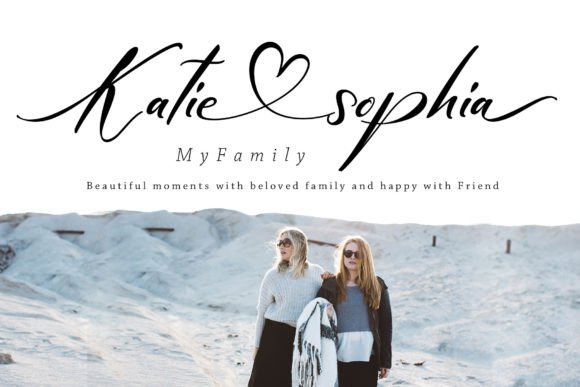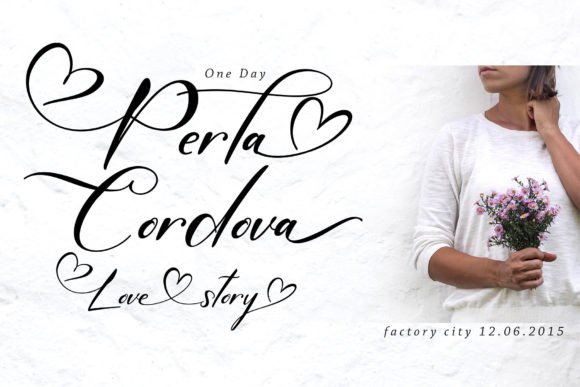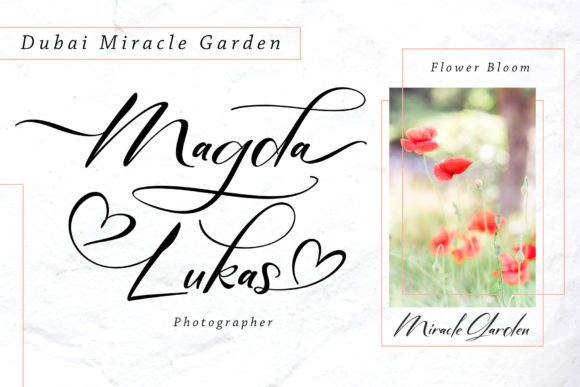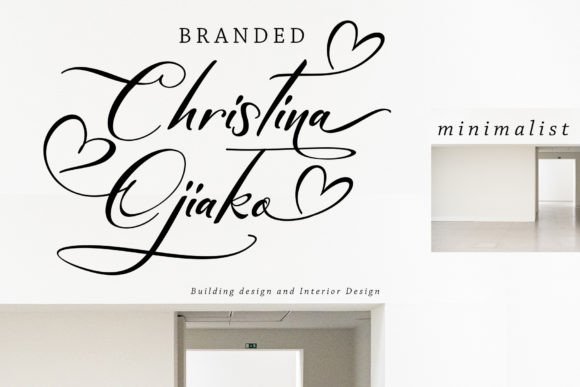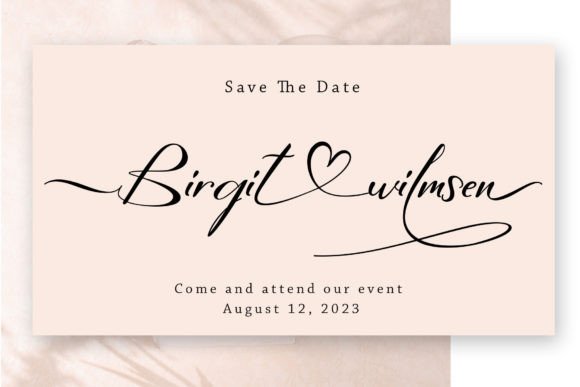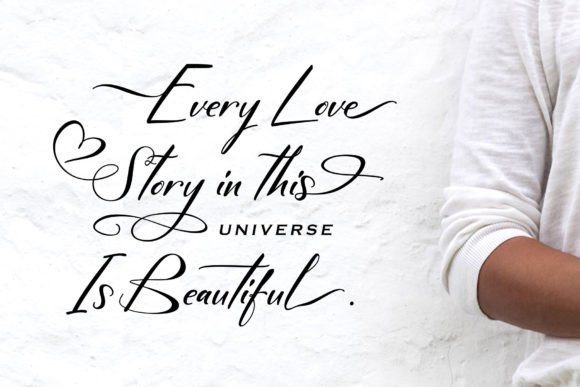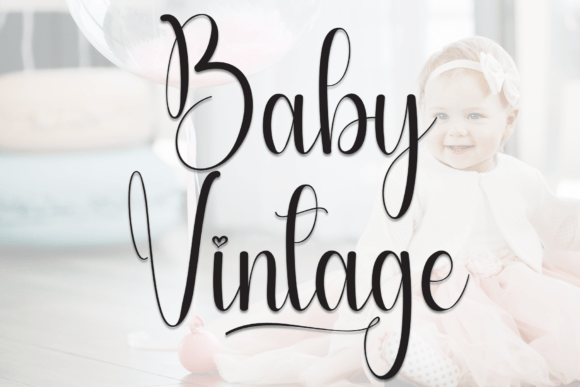
Unleash Your Creativity with Beautiful Rain Font
Have you ever sat down at your desk, stared at a blank page, and suddenly felt an overwhelming urge to create something beautiful? For designers, this moment is a familiar sensation – a spark that ignites a passion to craft something truly special. And what better way to bring that vision to life than with the perfect font?
That’s where Beautiful Rain Font comes in – a stylish, nostalgic signature script font that’s sure to capture your heart. With its distinct and well-balanced letters, this font is a masterpiece that’s perfect for creating spectacular designs. Whether you’re a seasoned pro or just starting out, Beautiful Rain Font is an invaluable tool in your design arsenal.
By incorporating this versatile font into your projects, you’ll be able to add a touch of elegance and sophistication that’s sure to leave a lasting impression. So why settle for ordinary when you can make a statement with Beautiful Rain Font?
Beautiful Rain Font Key Features
- Font Family: Beautiful Rain
- Unique Characteristics: This script font features a flowing, handwritten style with dynamic letterforms and a sense of movement, perfect for creative and artistic applications.
Designer Review: Beautiful Rain Font
Overall, I’m impressed with the “Beautiful Rain Font” – it has a certain je ne sais quoi that’s hard to put into words. ✨ The font’s soft, watercolor-like aesthetic is perfect for adding a touch of whimsy to any design project. ✨
- Unique aesthetic: The font’s blend of cursive and script elements creates a truly one-of-a-kind look that’s sure to stand out.
- Legibility: Despite its artistic flair, the font remains surprisingly easy to read, even at smaller font sizes.
- Emotional resonance: The font’s dreamy, ethereal quality makes it perfect for conveying a sense of wonder or enchantment.
That being said, there are a few limitations to keep in mind. ⚠️
- Lack of consistency: The font’s irregularities can make it tricky to use for body text, where consistency is key.
- Limited language support: The font’s unique design may not translate well to languages with very different character sets.
Overall, I’d recommend the “Beautiful Rain Font” for designers looking to add a touch of magic to their projects. Just be sure to use it sparingly, and in contexts where its unique aesthetic will shine.
Tips for Getting the Most Out of Beautiful Rain Font
1. Use the font in combination with images or graphics to create a visually appealing design.
2. Experiment with different font sizes and styles to create a dynamic effect.
3. Use the font to add a touch of elegance and sophistication to your designs.